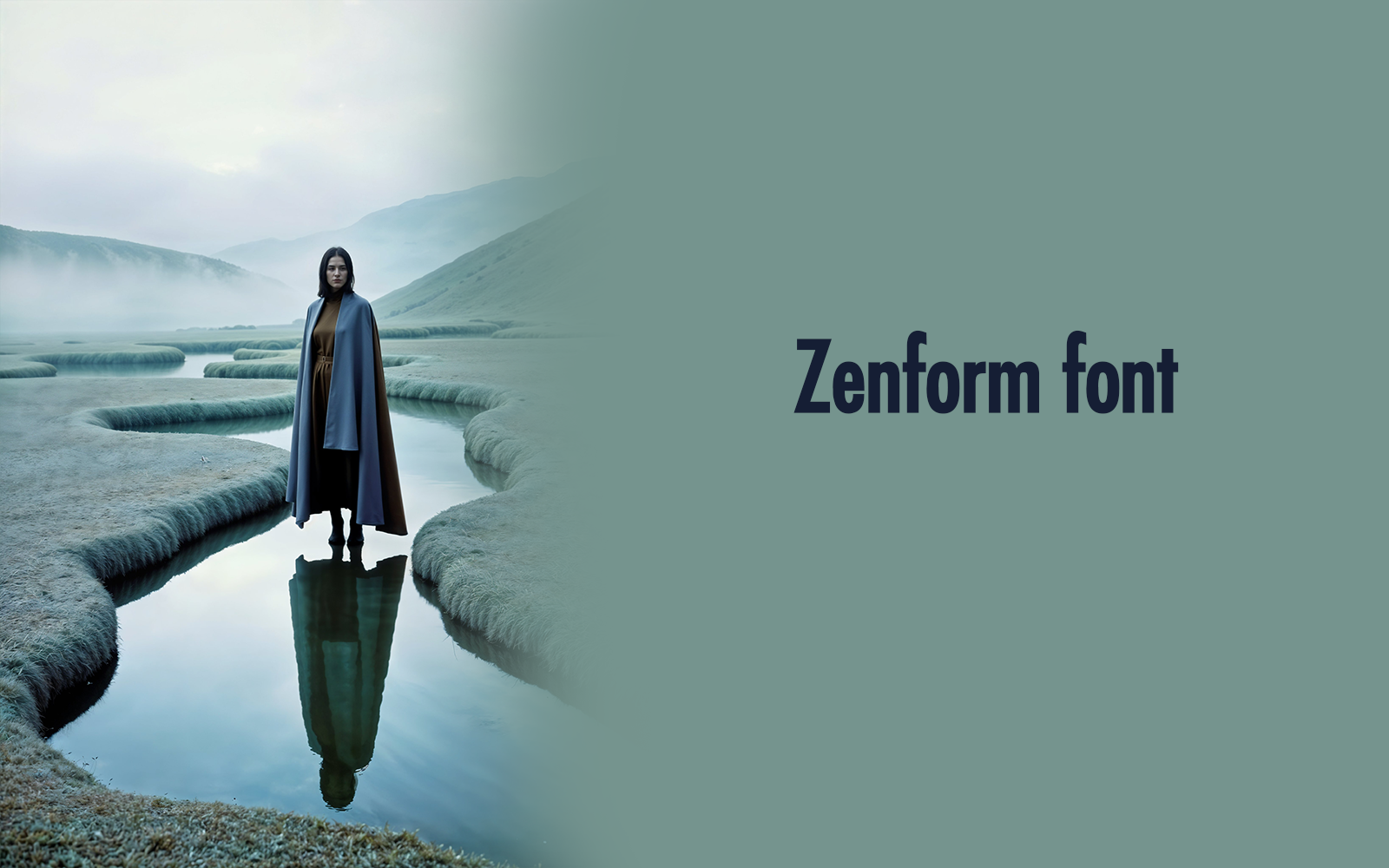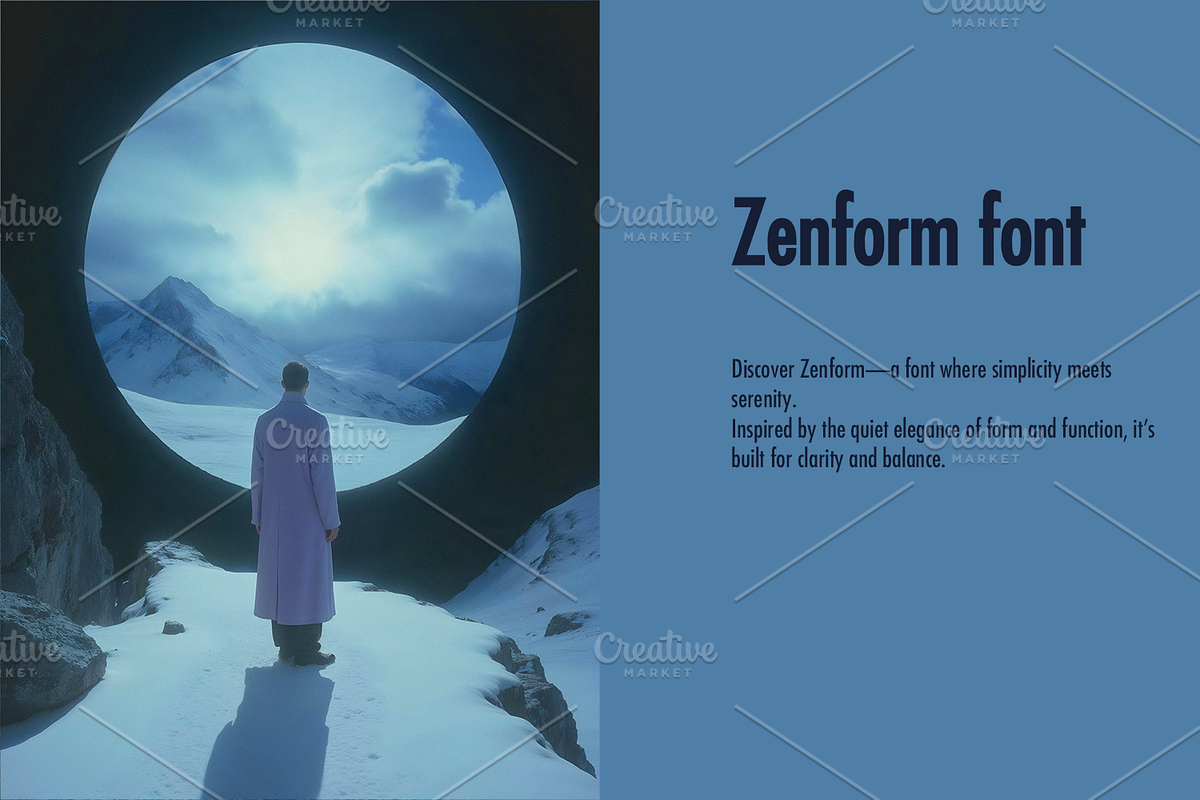
Zenform font-Normal-0113-25
Discover Zenform—a font where simplicity meets serenity. Inspired by the quiet elegance of form and function, it’s built for clarity and balance. Perfect for brands seeking harmony, minimalism, and modern appeal. Every line feels intentional, every letter composed. Zenform: Designed for stillness in motion.